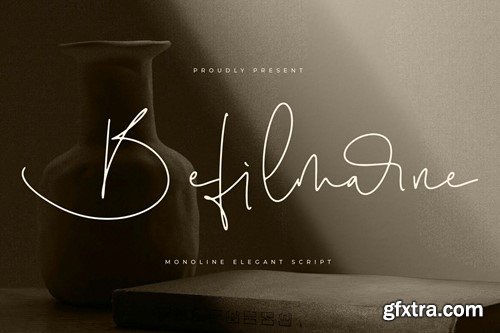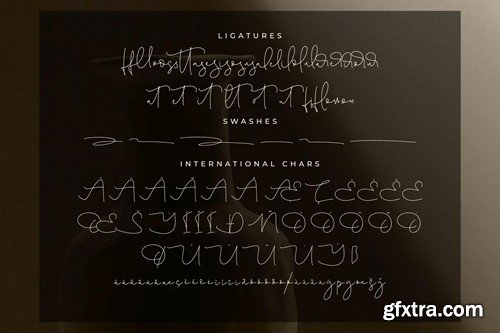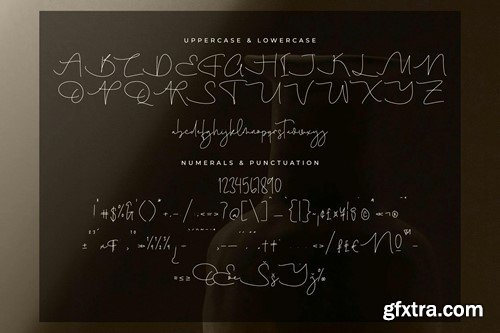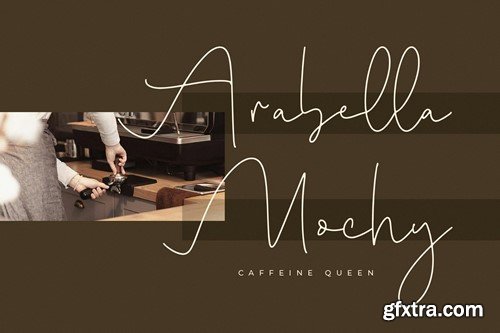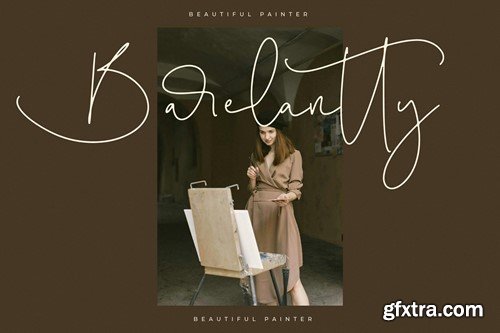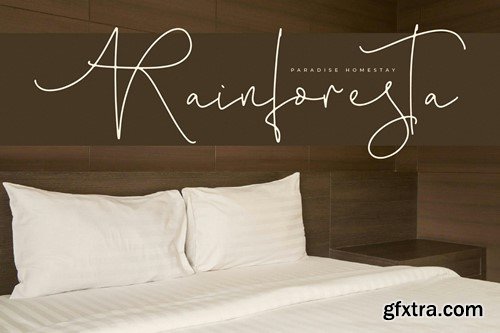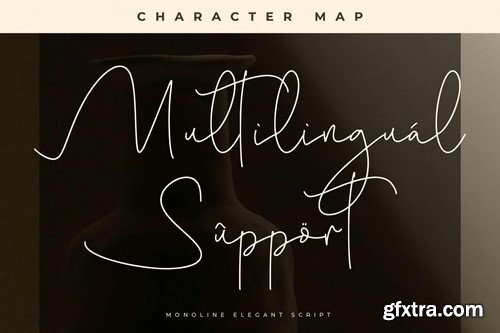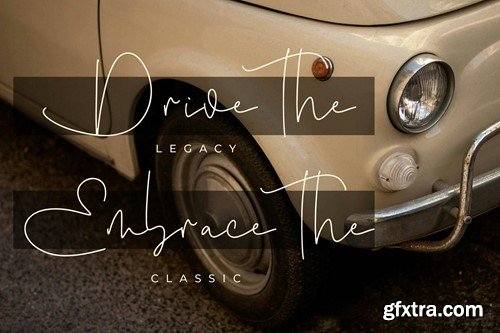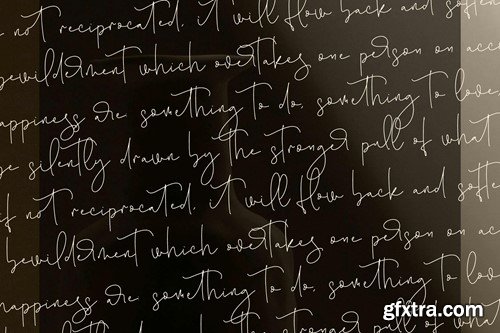
贝菲尔马尼优雅手写线体BPJUSZH
Befilmarne Monoline Elegant Script Font BPJUSZH
Befilmarne Monoline Elegant Script Font
Hi ladies & gentlemen, this is one of our fonts suitable to complement your digital and printed creative products. This font is perfect for posters, social media posts, branding, personal projects, etc.